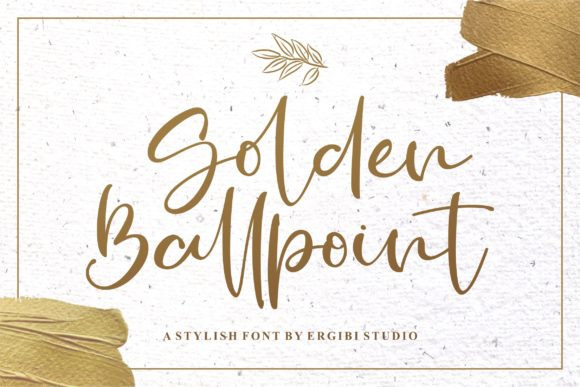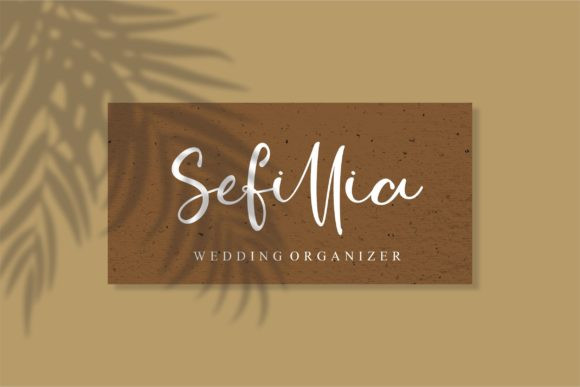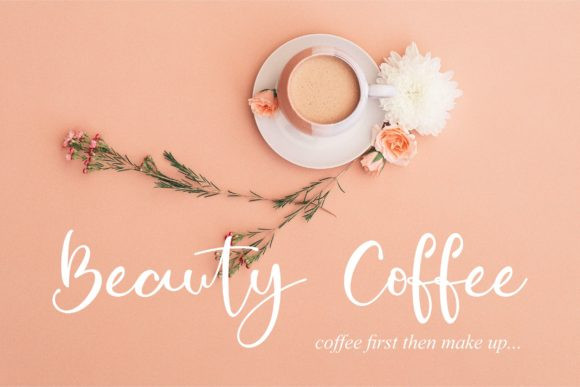
Golden Ballpoint Font
Golden Ballpoint FontGolden Ballpoint feels equally charming and elegant. It looks stunning on wedding invitations, thank you cards, quotes, greeting cards, logos, business cards and every other design which needs a handwritten touch.